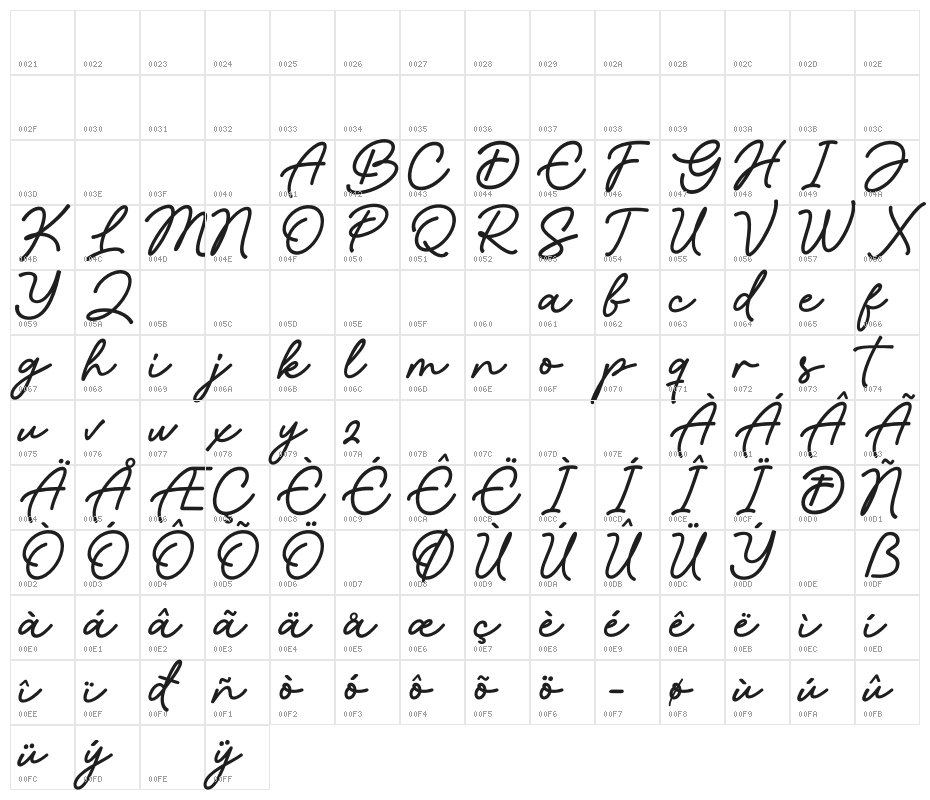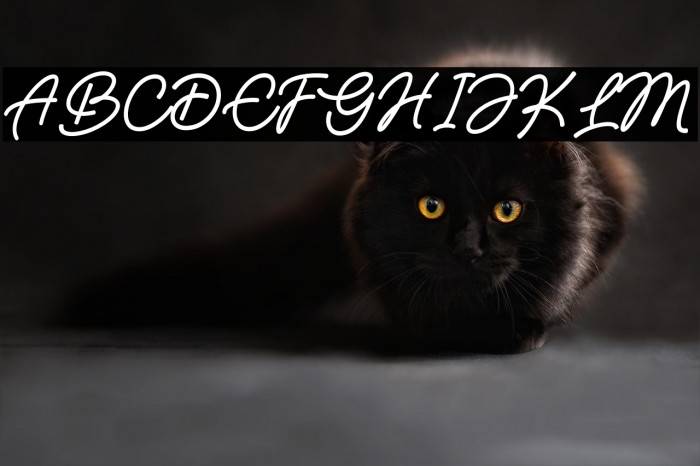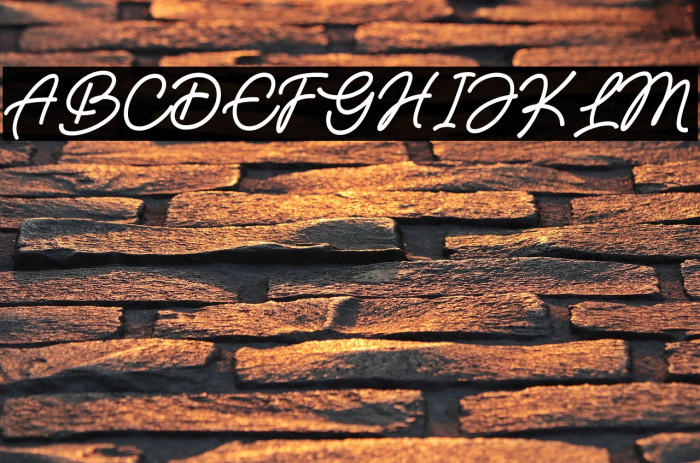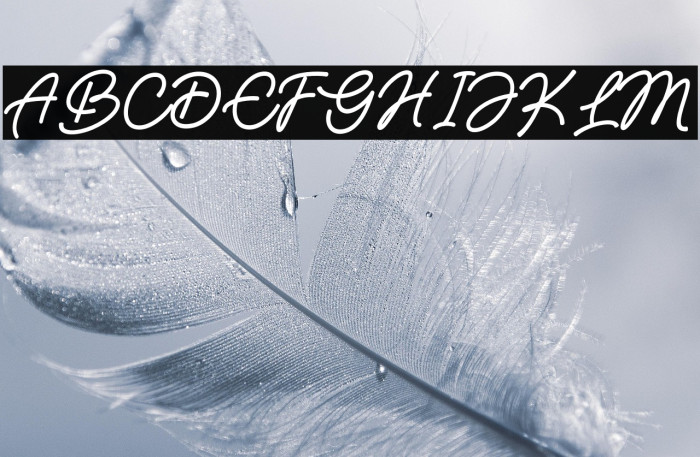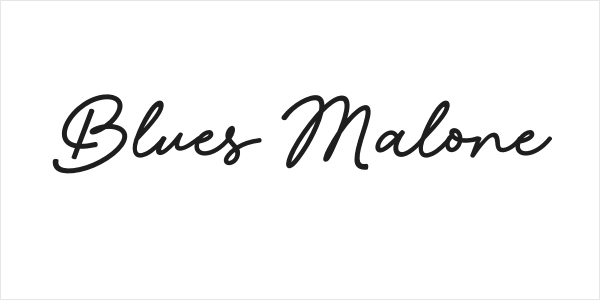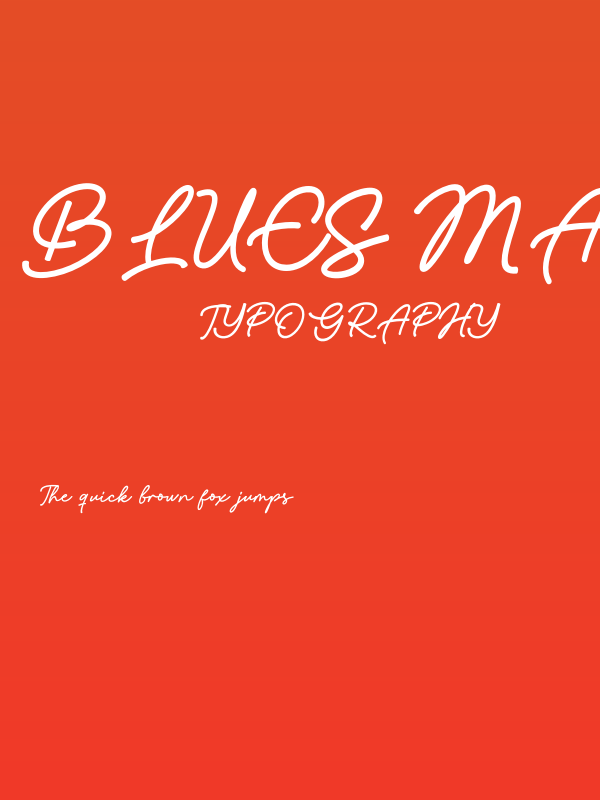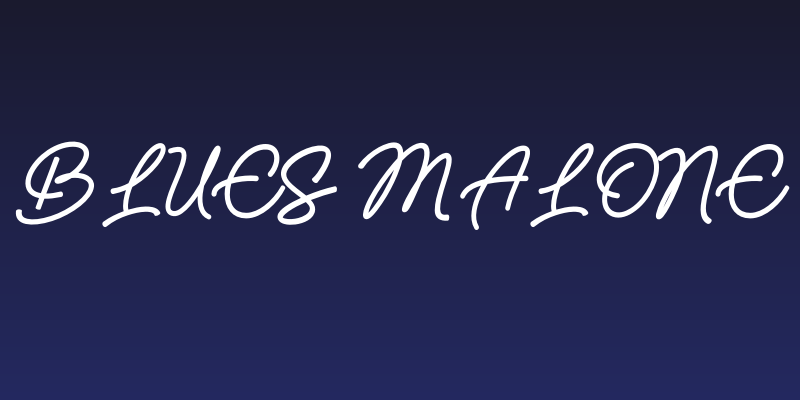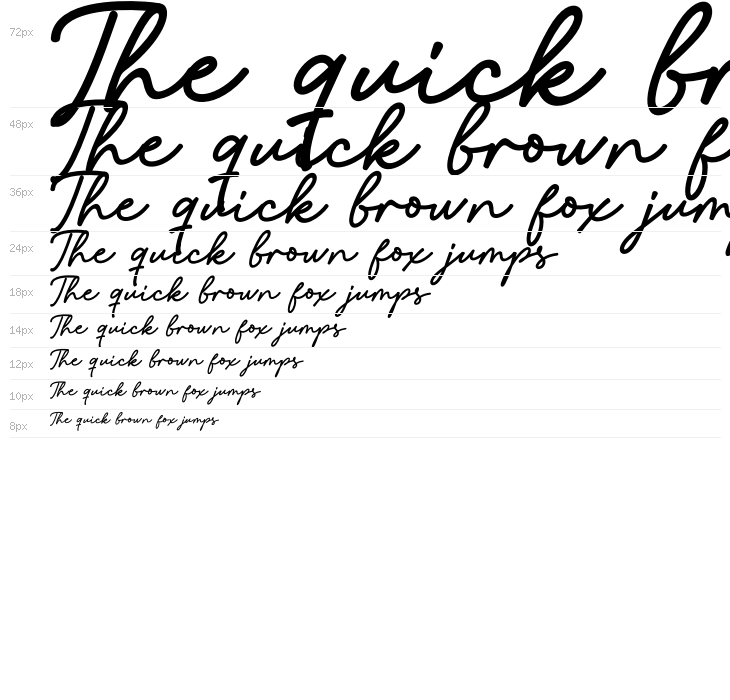
Blues Malone Font
Blues Malone Description
This font exhibits a flowing, cursive style that mimics elegant handwriting. The letters are interconnected, creating a seamless and fluid appearance. The uppercase letters maintain a consistent height, while the lowercase letters feature gentle loops and curves, enhancing the script's graceful aesthetic. The strokes are smooth and moderately thick, providing a balanced contrast that ensures readability while maintaining an artistic flair. This font is suitable for projects that require a personal touch, such as invitations, greeting cards, or branding materials that aim to convey sophistication and warmth.
Overall StyleElegant
Use CaseInvitations, Branding, Greeting Cards
Proposed ProjectsIdeal for wedding invitations, personal branding, greeting cards, and elegant packaging designs.